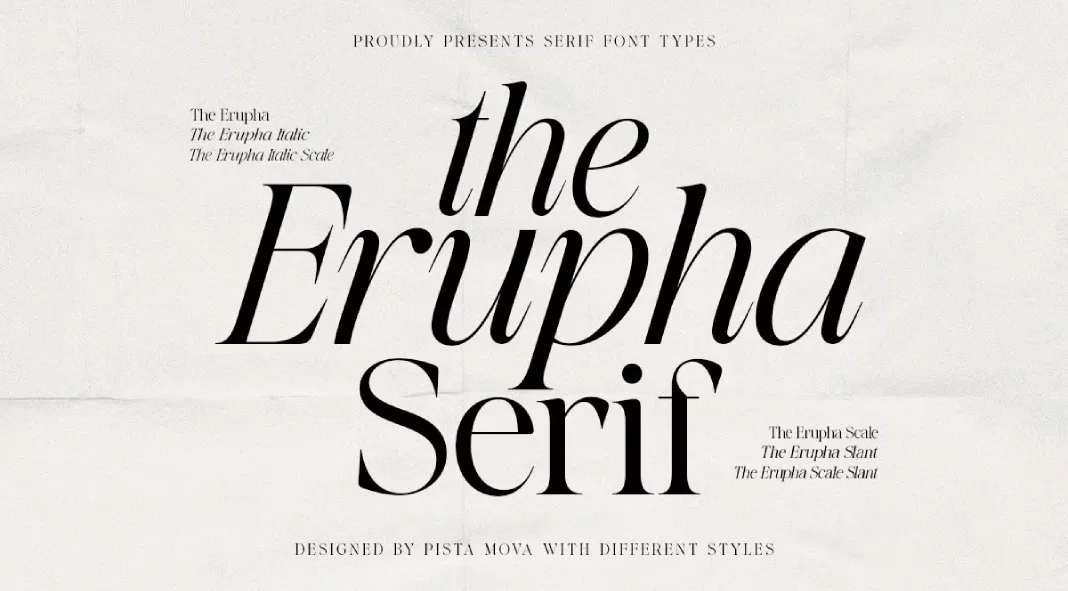
Masterfully designed by Pista Mova, the Erupha serif typeface is a homage to the enduring power of classic typography. Marrying old-world charm with contemporary aesthetics, Erupha stands out as a sophisticated typeface that offers a visual experience of elegance and refinement. With its high-contrast strokes, graceful curves, and perfectly balanced proportions, this font captivates the viewer, enhancing the visual appeal of any design. Whether used for editorial layouts, branding, or digital design, Erupha exudes a level of sophistication that sets it apart in the crowded world of typefaces.
Design Features and Craftsmanship
What makes The Erupha truly remarkable is the thoughtfulness behind each character. Every serif, curve, and stroke is meticulously crafted to evoke strength and refinement. The font’s high-contrast design adds drama and boldness, while the gentle curvature of its letterforms introduces a sense of fluidity and grace. These features work harmoniously to produce a typeface that is as functional as it is beautiful.
The typeface’s italic versions are particularly noteworthy. Rather than serving as simple slanted iterations of the standard upright letters, Erupha’s true italics are carefully designed to complement their upright counterparts. This creates a seamless visual flow, making the typeface ideal for projects where subtlety and visual interest are crucial. This versatility is further enhanced by a set of elegant ligatures that add personality and uniqueness to the text, perfect for creating distinctive letter combinations.
Versatility Across Design Applications
One of Erupha‘s strongest qualities is its adaptability to a wide range of design contexts. Its clean lines and balanced proportions ensure readability in long-form texts, making it an excellent choice for editorial design. Whether it’s used in magazines, newspapers, or books, Erupha offers both legibility and a classic aesthetic, enriching the reader’s experience.
In branding and logo design, Erupha‘s timeless appeal adds a touch of luxury and sophistication. Its refined beauty lends itself to high-end and memorable brand identities, making it ideal for industries that seek to convey elegance, such as fashion, beauty, and luxury goods.
For web design, Erupha maintains clarity and readability on screens of all sizes, thanks to its high contrast and well-balanced proportions. This makes it an excellent choice for designers looking to create engaging, easy-to-read web content.
Beyond editorial and digital applications, Erupha is also a strong contender for packaging and print design. Its classic, luxurious feel adds a premium touch to product packaging, invitations, and other stationery, ensuring that each piece leaves a lasting impression.
Advanced Typographic Features
The Erupha typeface comes equipped with a variety of OpenType features that give designers more control over their typography. Its collection of elegant ligatures offers the ability to craft unique and visually appealing letter combinations, while its true italics and slant variations provide flexibility and depth to your designs. Multilingual support for over 90 languages ensures that Erupha is accessible to a global audience, further solidifying its position as a versatile, international font.
The Erupha package is extensive, providing multiple variations to suit different design needs. In addition to the standard Erupha font, the package includes italic versions, scale, slant, and italic scale variants. This comprehensive selection allows designers to experiment with different typographic nuances, ensuring that each project has the perfect look and feel.
Erupha by Pista Mova is a modern serif font that strikes a perfect balance between classic design and contemporary versatility. Its carefully crafted characters, elegant ligatures, and multilingual support make it a must-have for any designer looking to create high-end, sophisticated projects. From editorial layouts to branding, packaging, and web design, Erupha’s timeless elegance and refined details ensure that it will elevate the visual impact of any work.